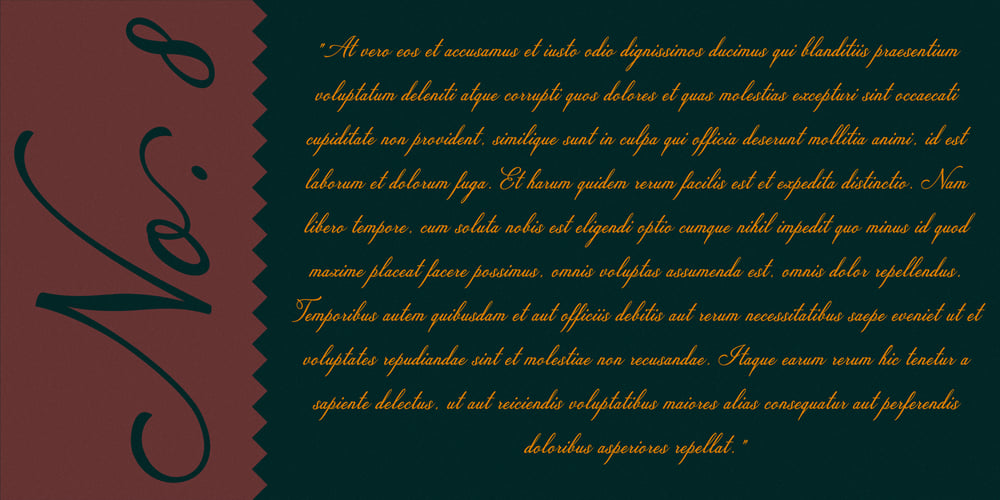
Colesberg Script Font Family was designed by Irma Asharini and published by Letrasupply Typefoundry. Colesberg Script contains 7 styles and family package options. Inspired by vintage script letters, Colesberg Script comes with layered font styles, alternates characters, swash, and ornaments. Have fun with these fonts, you can make a beautiful decorative type and perfect script for any project such as custom name, logos, quotes, invitation, and more creative project easily.